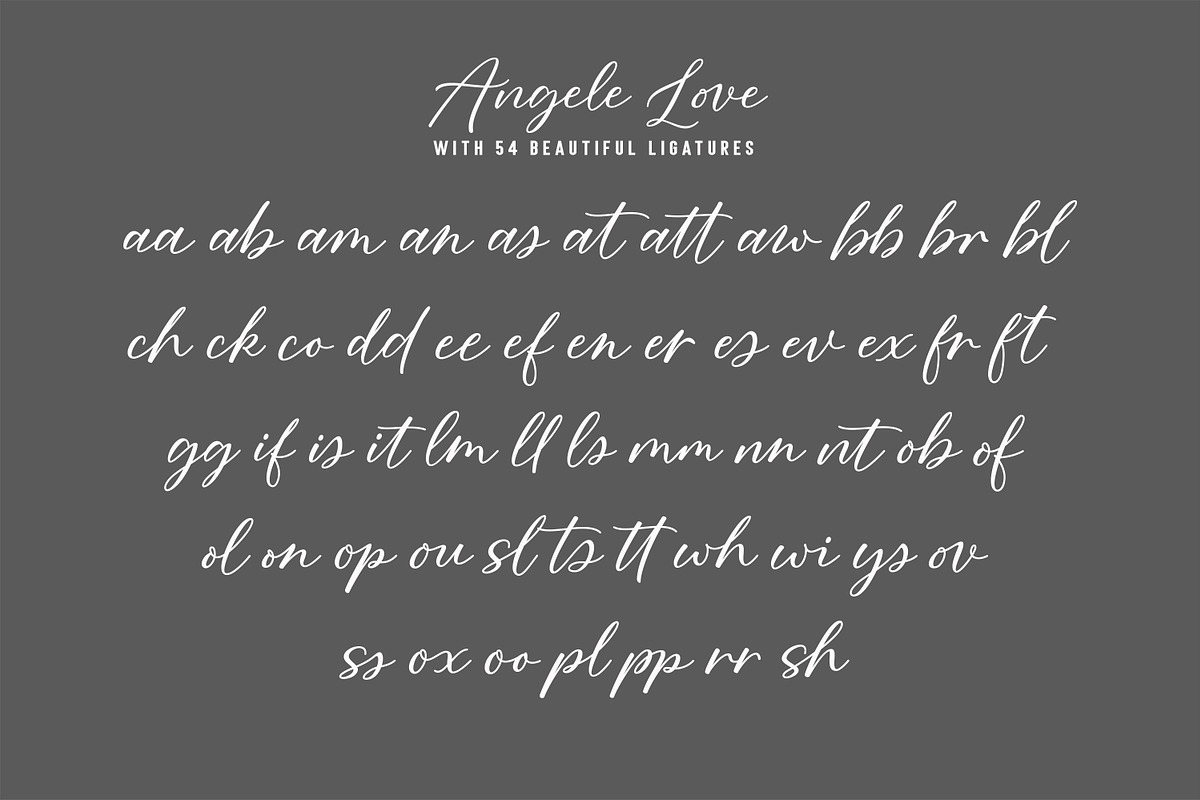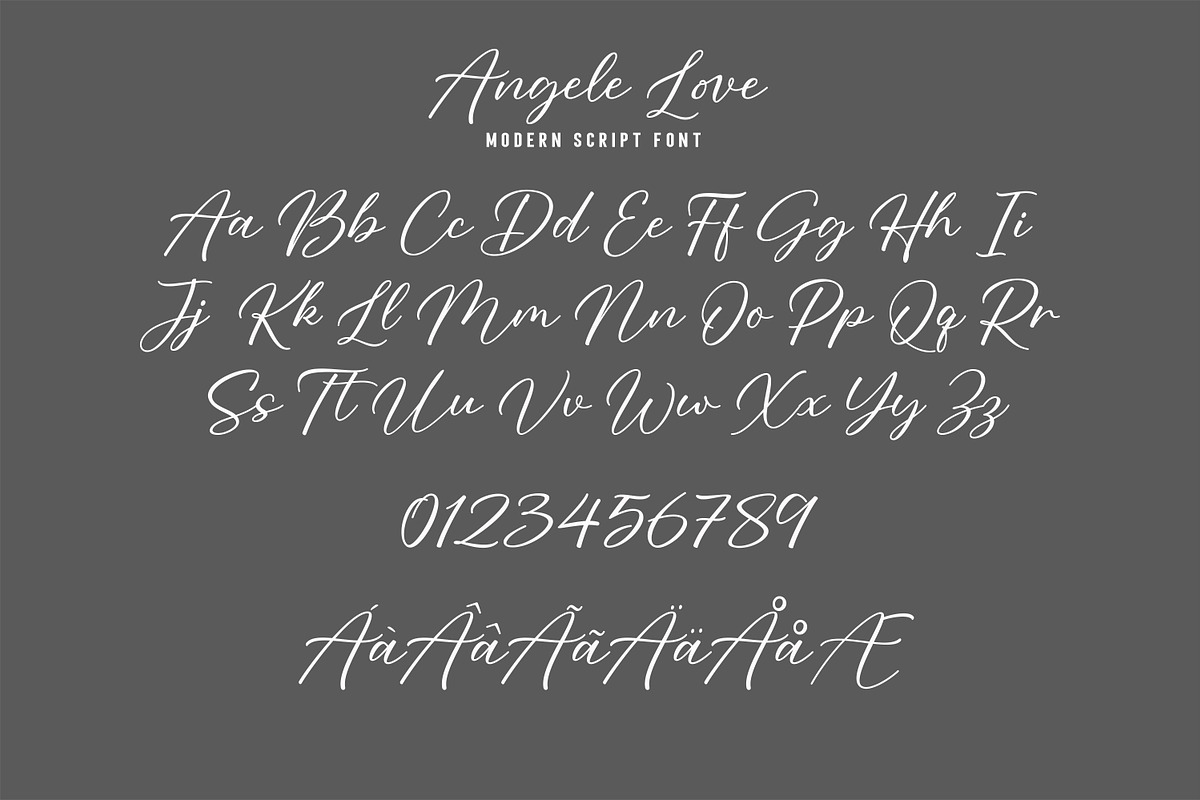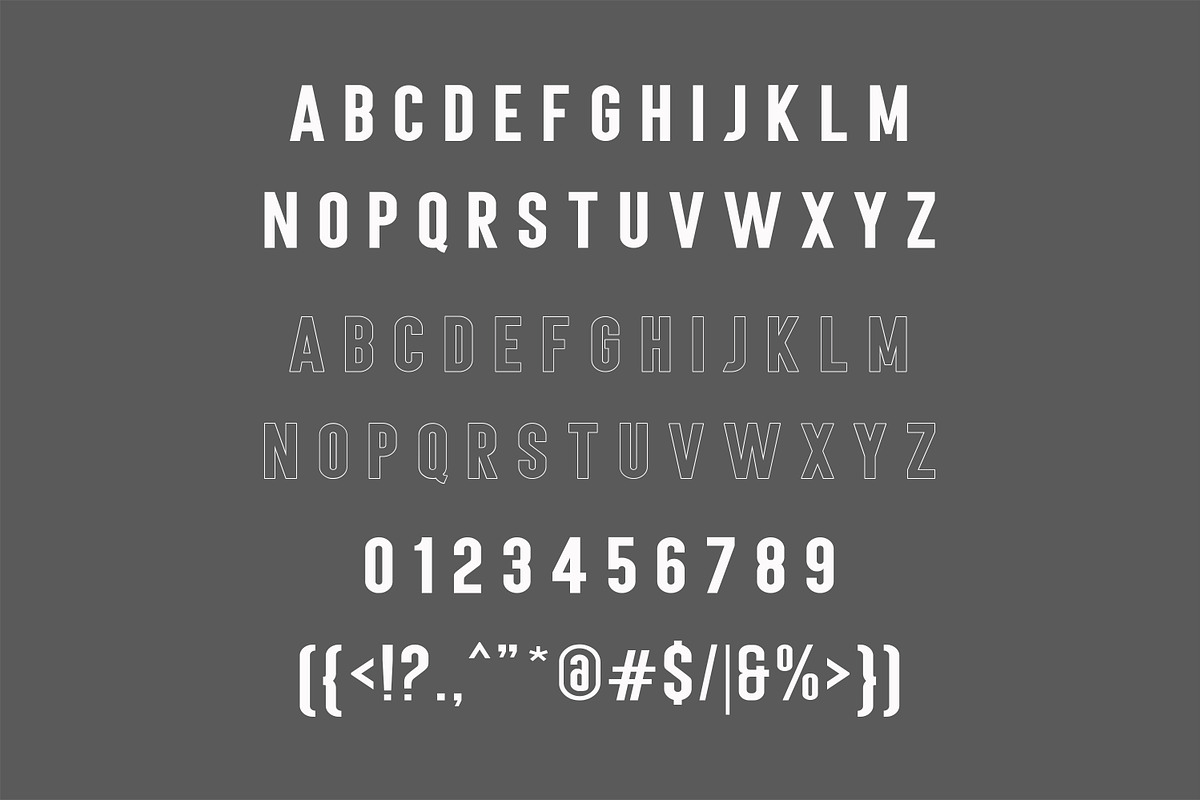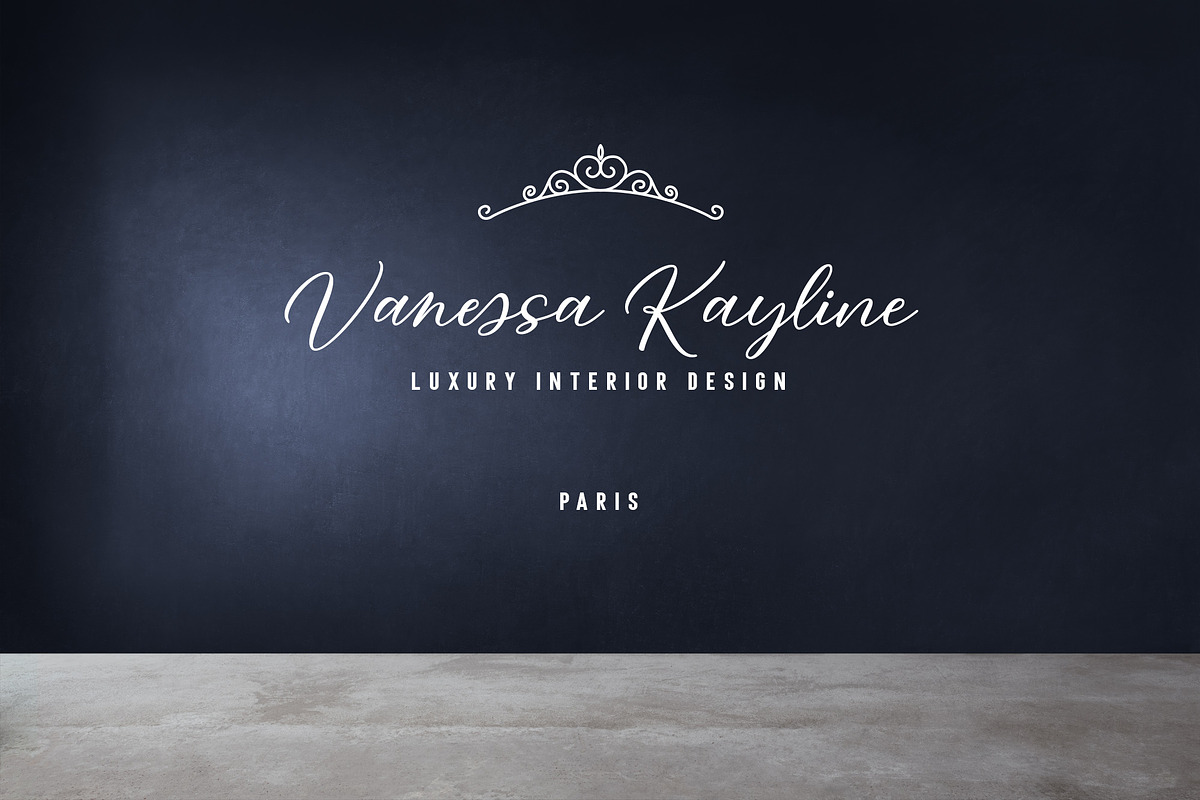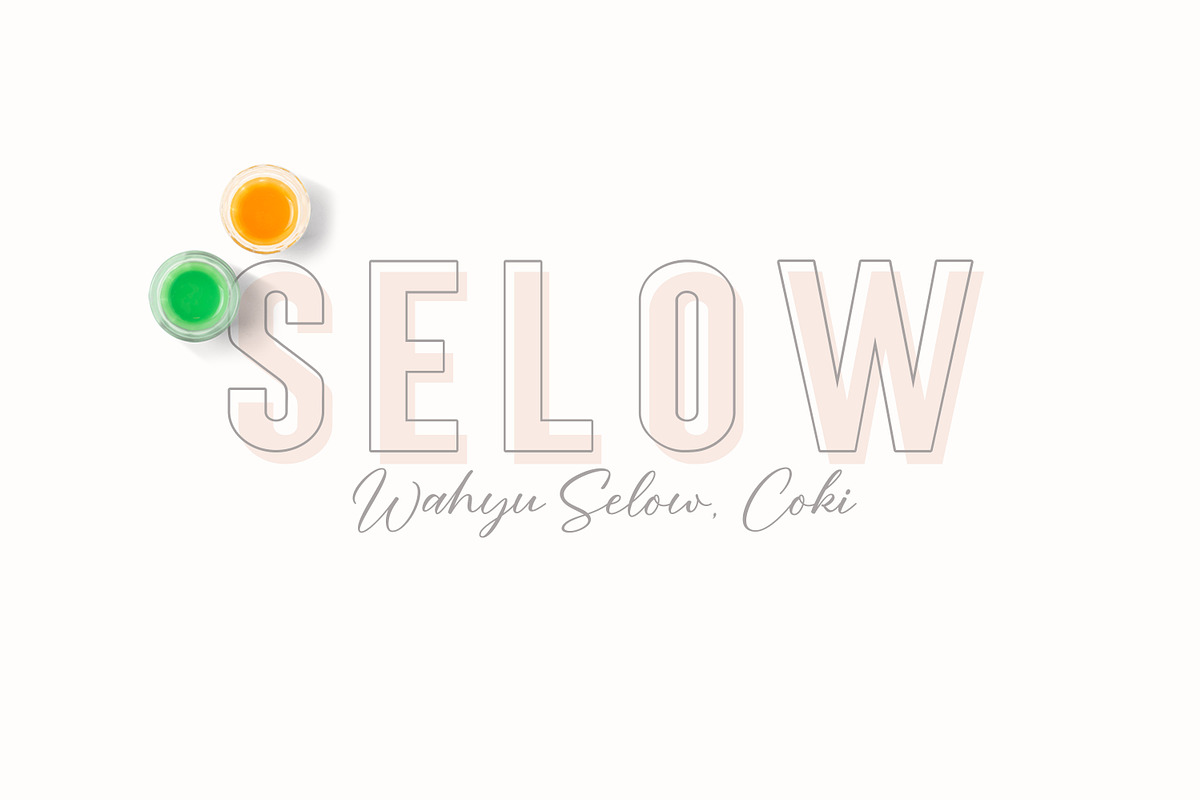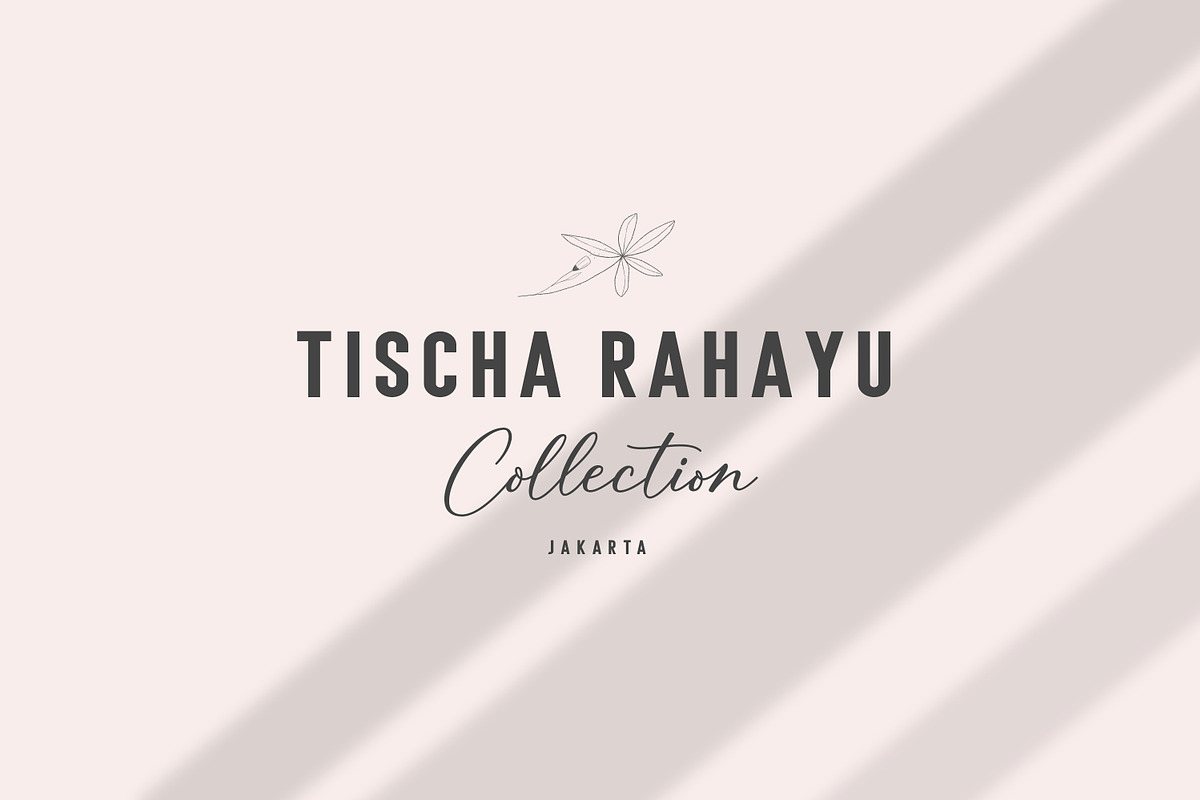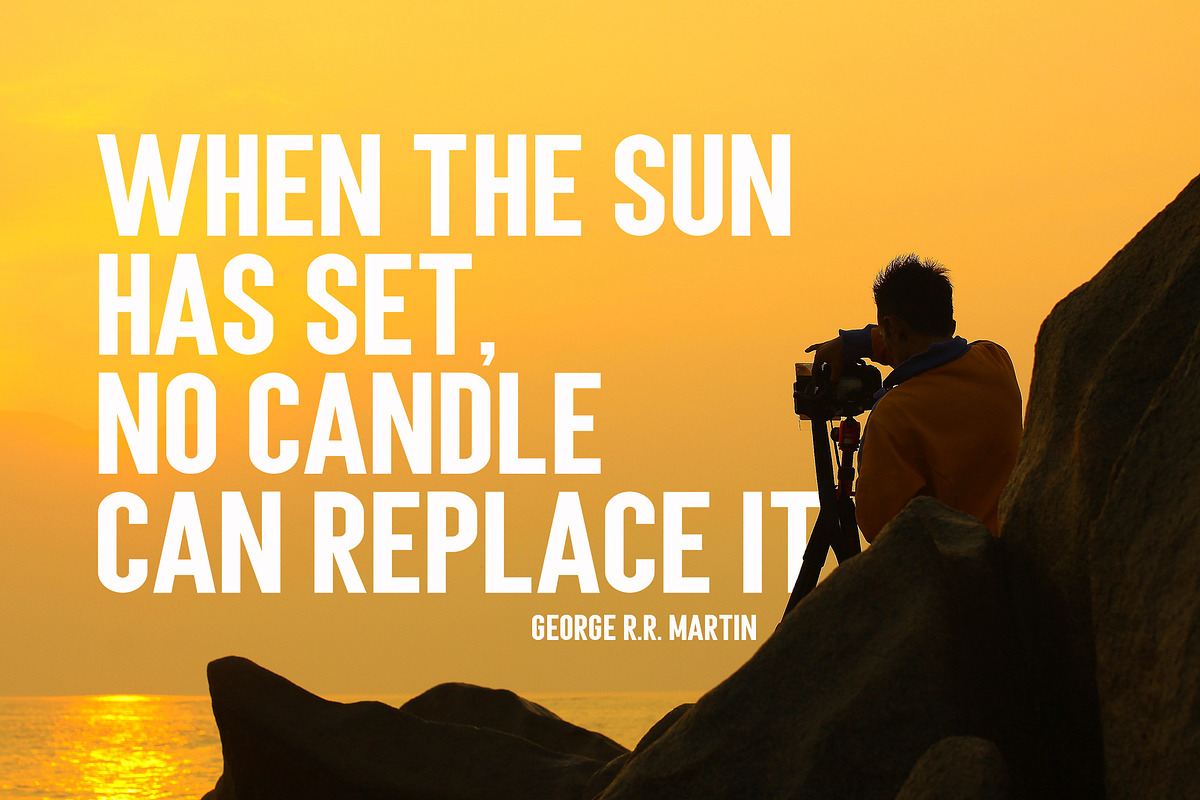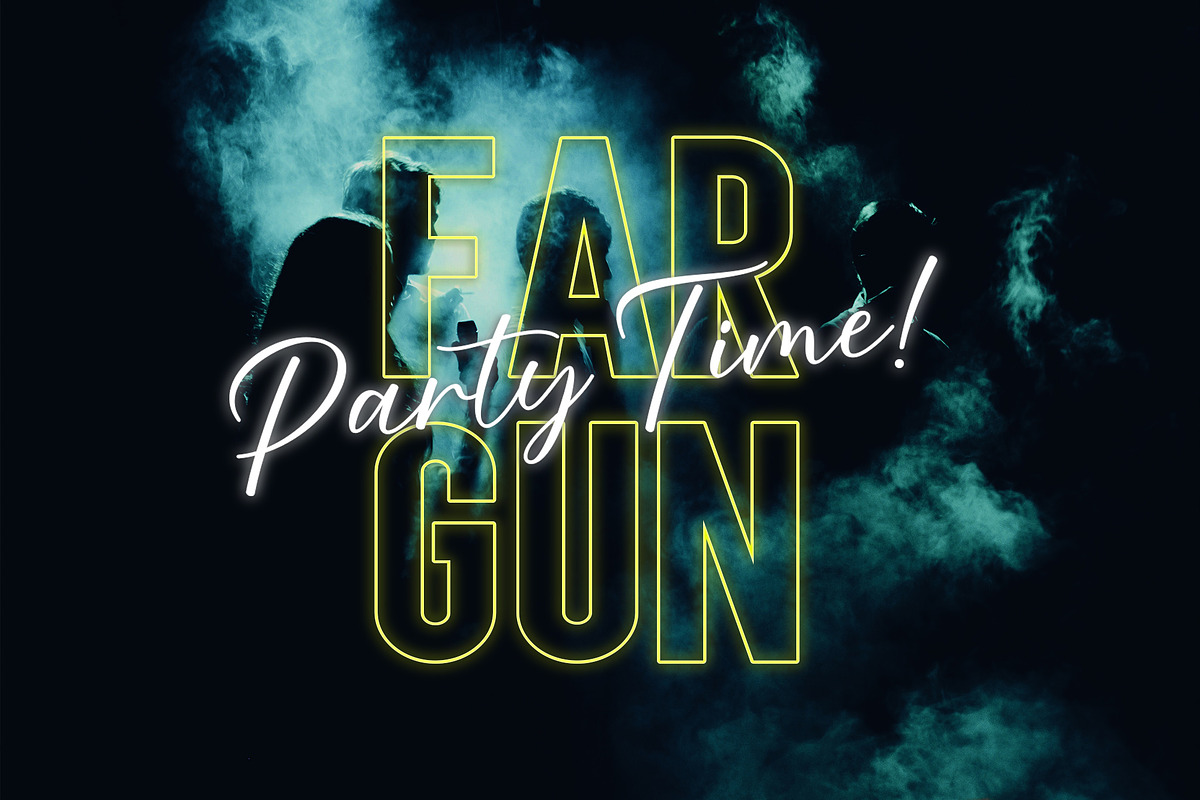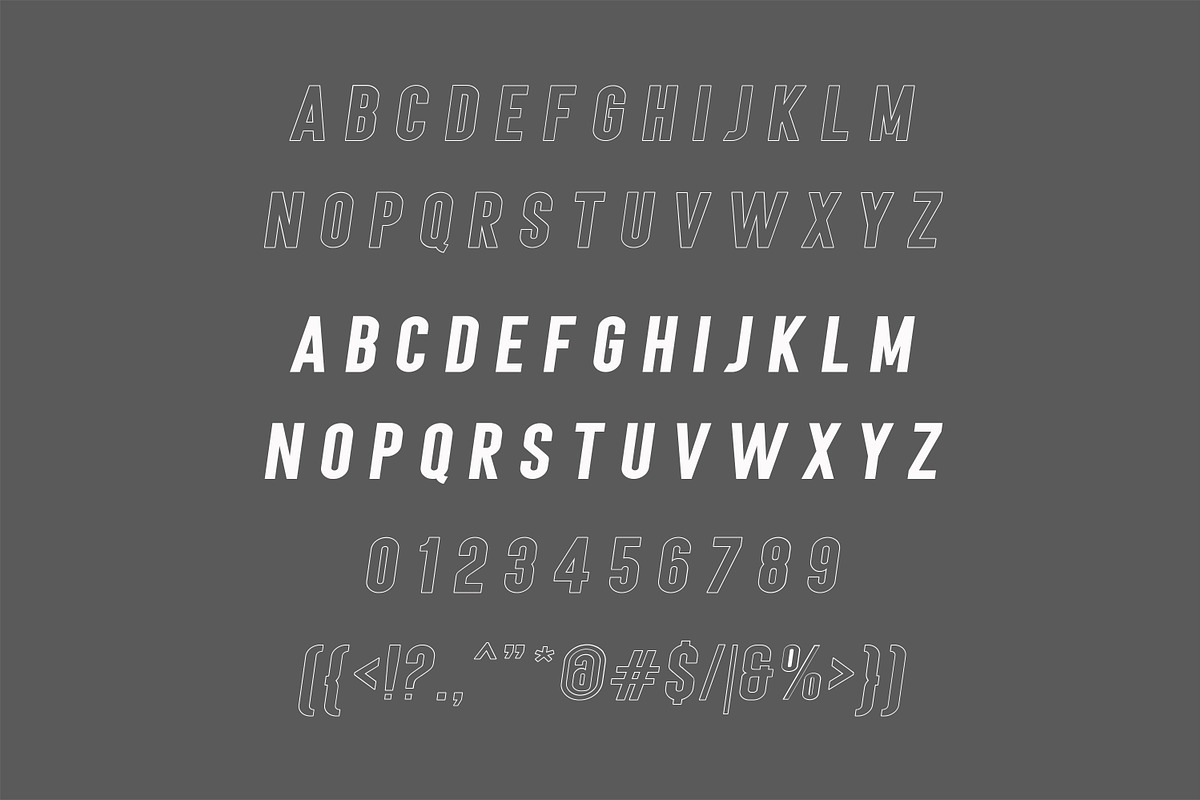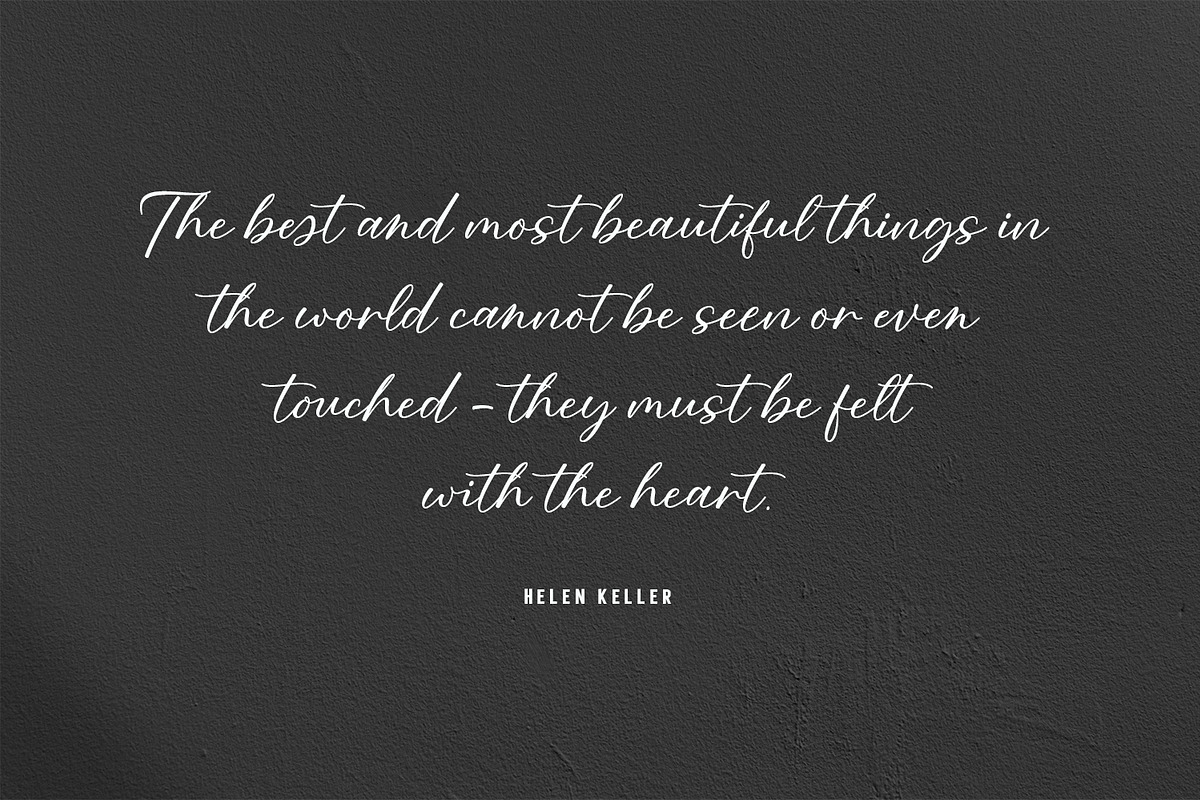
Angela Love Script & Sans
Introducing Angela Love
A modern combination of 5 fonts, each carefully designed to naturally complement one another. With 4 clean sans fonts and 1 modern script fonts, Angela Love gives you a hugely versatile collection of fonts - ideal for experimenting with striking & modern typographic designs in any modern design brief. It is so beautiful and classy for your projects.
Angela Love Script • A textured, bouncy & flowing marker script font containing upper & lowercase characters, numerals, and a large range of punctuation.
Angela Love Sans • A bold sans font containing uppercase only characters, numerals, and a large range of punctuation.
Angela Love Sans Outline • A thick outlined version of Angela Love Sans, pair this with other Angela Love Sans fonts to add emphasis to words or phrases.
Angela Love Sans Italic • Italic variations are included for all 2 Angela Love Sans fonts.